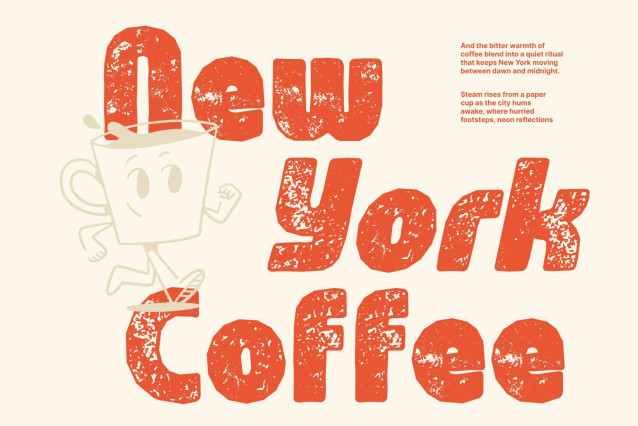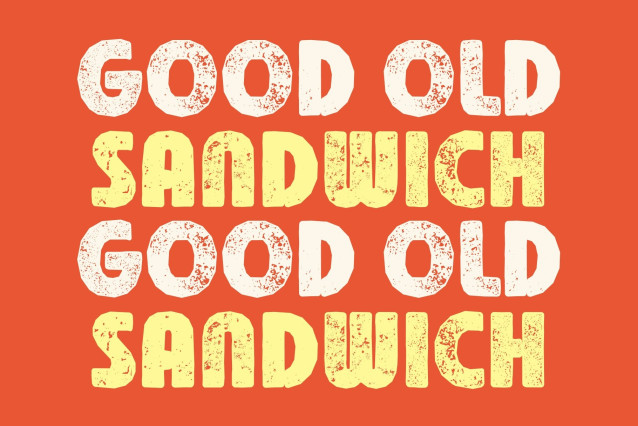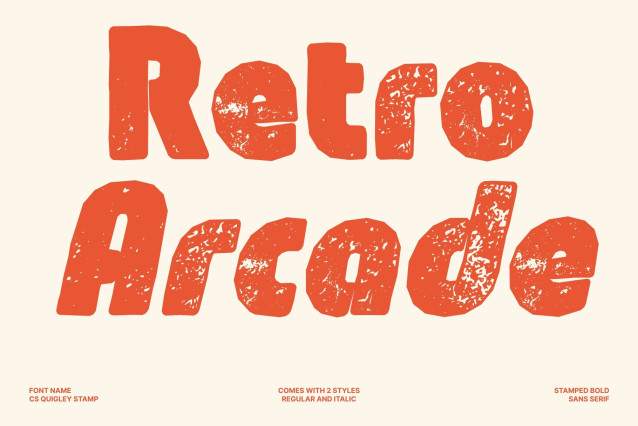
CS Quigley Stamp Font
CS Quigley Stamp – Bold Display Sans Serif Font: Where Funky Energy Meets Vintage Character
Strong Funky Forms with Attention-Grabbing Impact
This is a bold display sans serif font designed to command attention with its strong structure and funky personality. Its solid letterforms and playful visual rhythm create a lively and energetic appearance that instantly stands out.
Expressive Style with Artistic Flair
This font delivers a typographic style that feels dynamic, unconventional, and full of life. Its striking forms enhance visual hierarchy while adding a distinctive personality, allowing designs to feel both fun and visually powerful. The font transforms text into an eye-catching design element.
Stamped Texture with Vintage Appeal
This font introduces a rough, handcrafted texture inspired by traditional print techniques. This artistic detail adds vintage character, expressive depth, and an authentic old-design feel to every letter. The textured finish enriches the bold forms with warmth and individuality, creating a memorable visual identity.